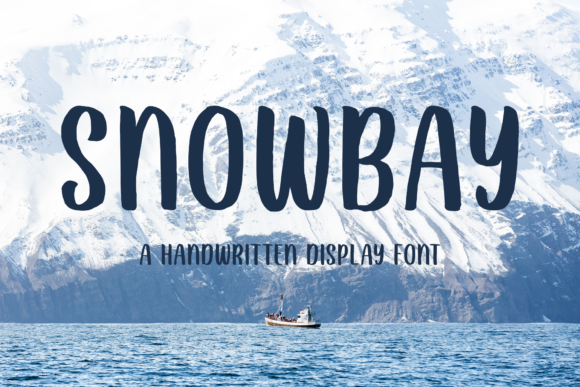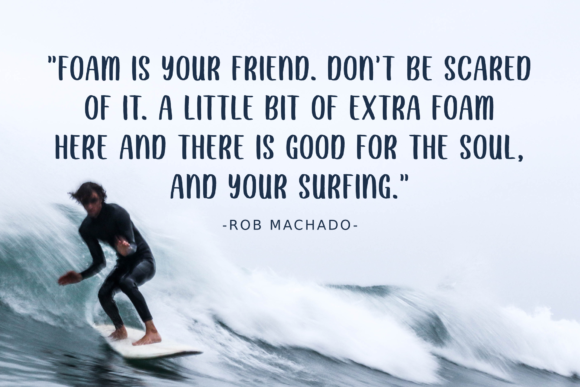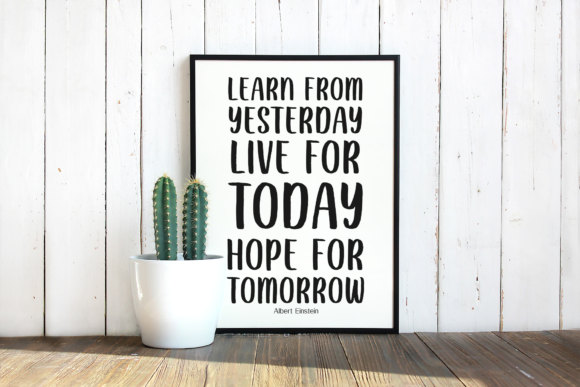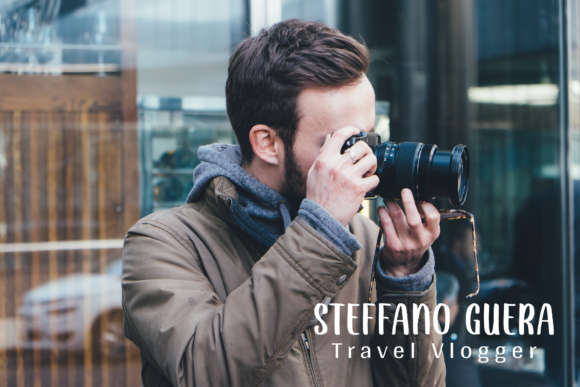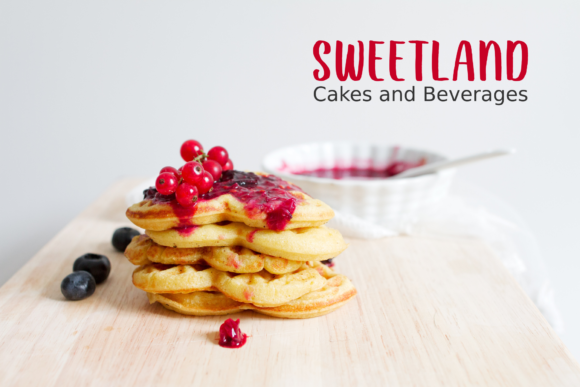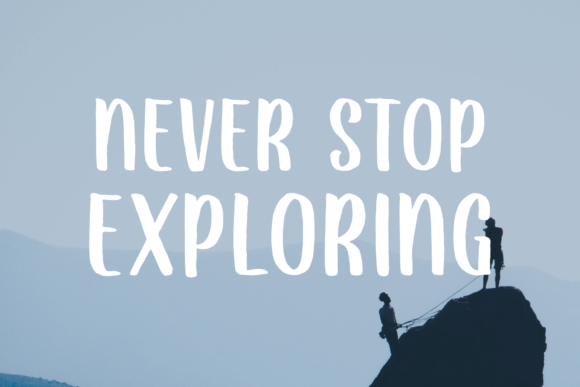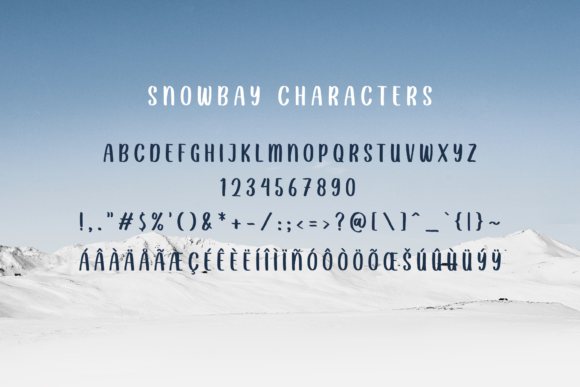
HomeScript FontsSnowbay Font Script Fonts Snowbay Font FacebookXPinterestWhatsApp Snowbay Font Poster 2 Snowbay Font Poster 3 Snowbay Font Poster 4 Snowbay Font Poster 5 Snowbay Font Poster 6 Snowbay Font Poster 7 Snowbay Font Poster 8 About Snowbay Font Snowbay is a playful and sweet script that pays homage to childrens’ handwriting. DOWNLOAD ON CREATIVE FABRICAThis font is sold and delivered by Creative Fabrica. Font Canyon may earn a commission if you buy through this link. People also explored Qalam Font Childish Font Fox Terrible Font Bellinda Christina Font Uptown Berlin Font Junita Script Valentine Font Westborn Font Challiren Font 414 0 TagsSnowbay Font Previous articleUnlocking Your Dreams FontNext articleTalmano Font LEAVE A REPLY Cancel reply Comment: Please enter your comment! Name:* Please enter your name here Email:* You have entered an incorrect email address! Please enter your email address here Website: Save my name, email, and website in this browser for the next time I comment. Personal Use Free Abingdon Personal Use Free Read more about this font England Personal Use Free Read more about this font Electroharmonix Personal Use Free Read more about this font Letter Hanger Personal Use Free Read more about this font BLOG Free Fonts Risk: Why Free Fonts Can Be Dangerous for Designers Free Fonts Risk: Why Free Fonts Can Be Dangerous for Designers Using free fonts is a common practice in web and graphic design. However, the... How to Install and Use Fonts on Windows, macOS, and Web Projects Top 10 Handwritten Fonts That Elevate Your Designs How to Cut Any Font on Cricut: Convert a Font to SVG (Free)